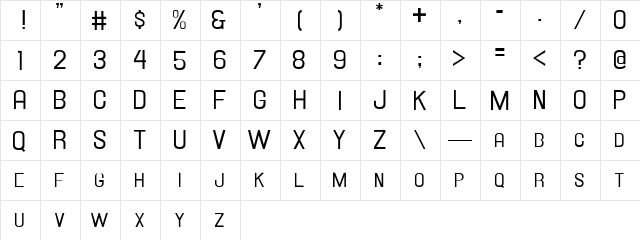
Hallandale Small Caps JL Regular
| Foundry | Jeff's Fonts & Dingbats |
| Designer | Jeffrey N. Levine |
Design Context for Hallandale Small Caps JL Typeface
Hallandale Small Caps JL is a composed and adaptable typeface that performs quietly and consistently across a wide range of design contexts.